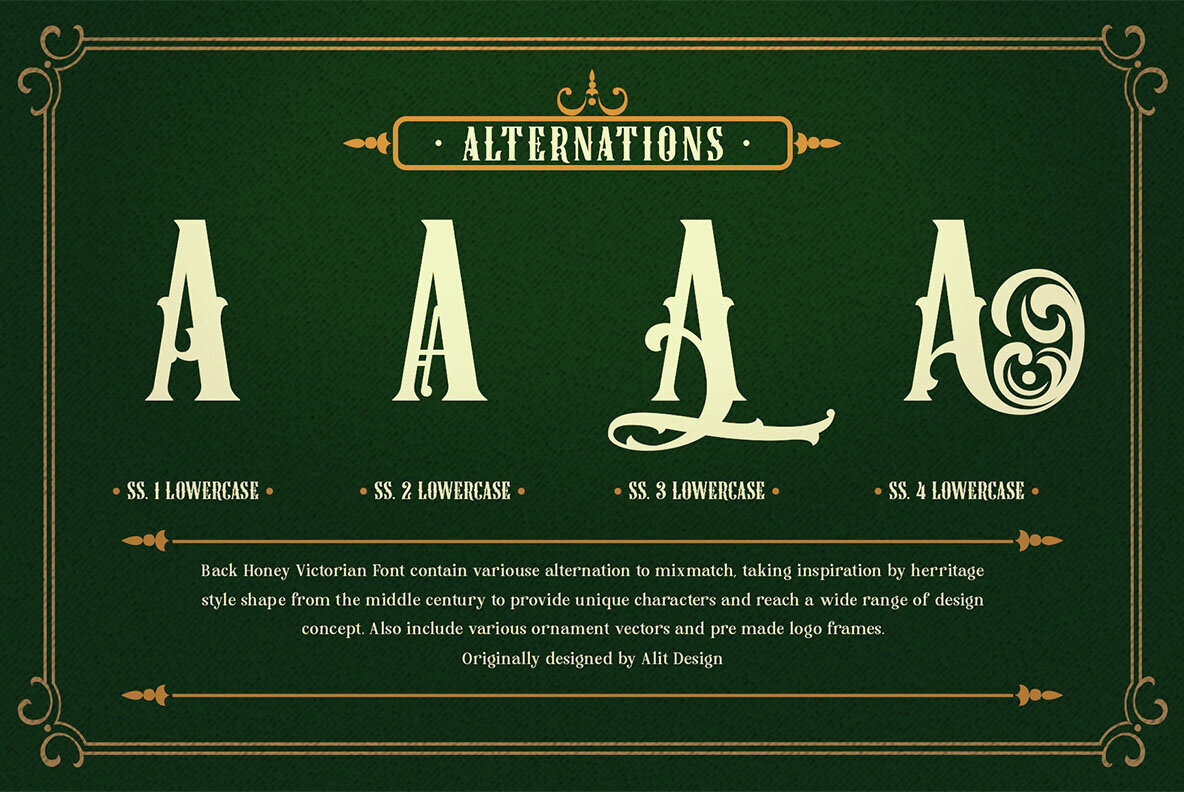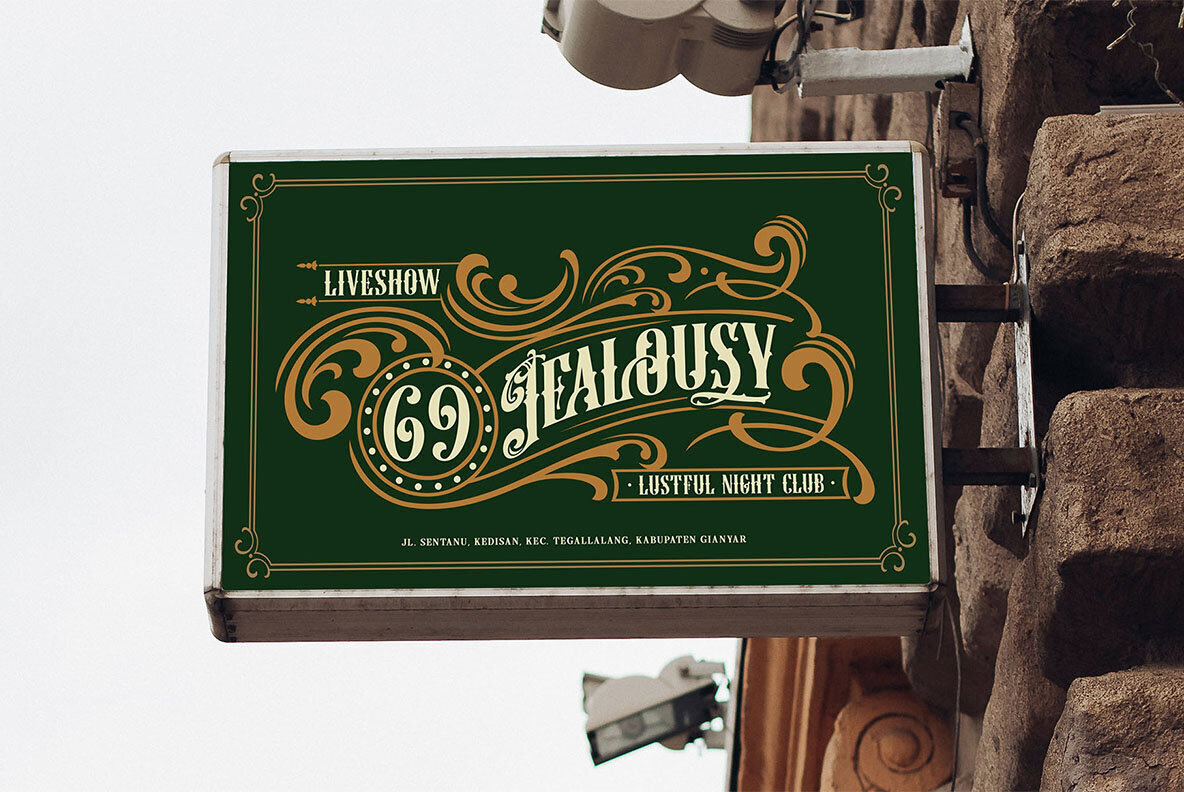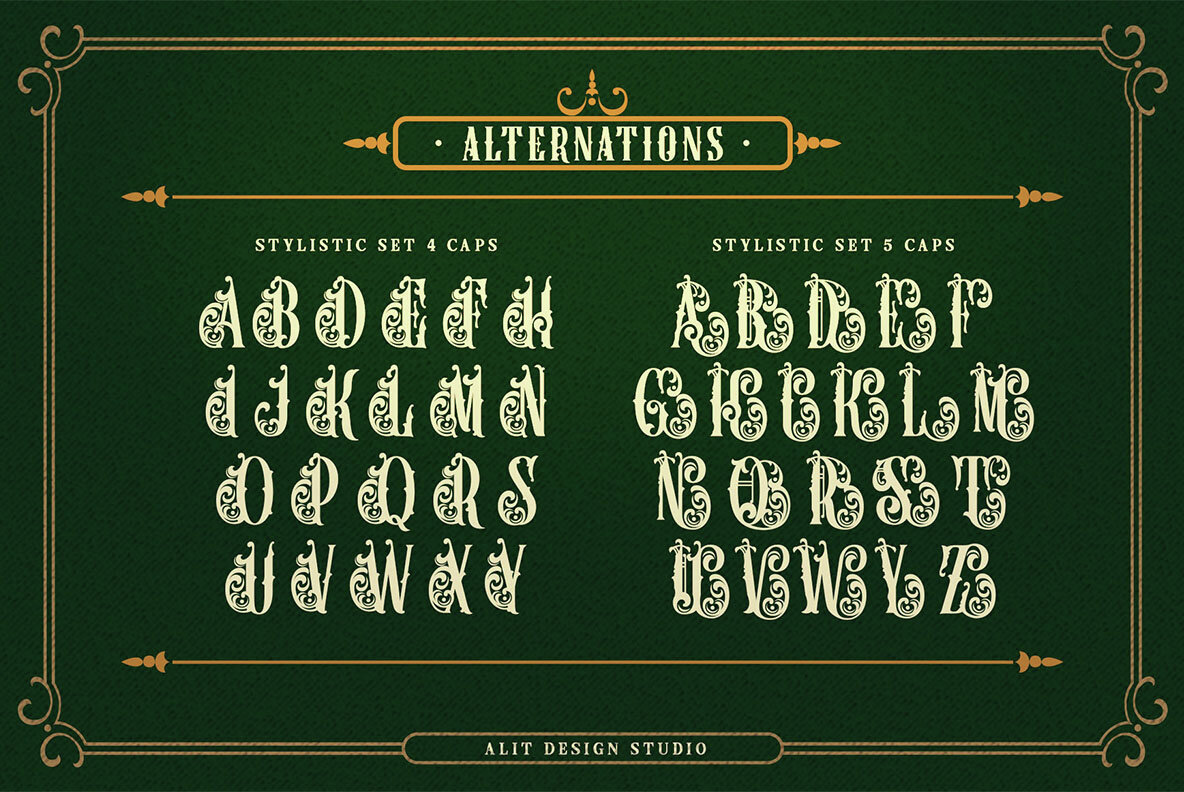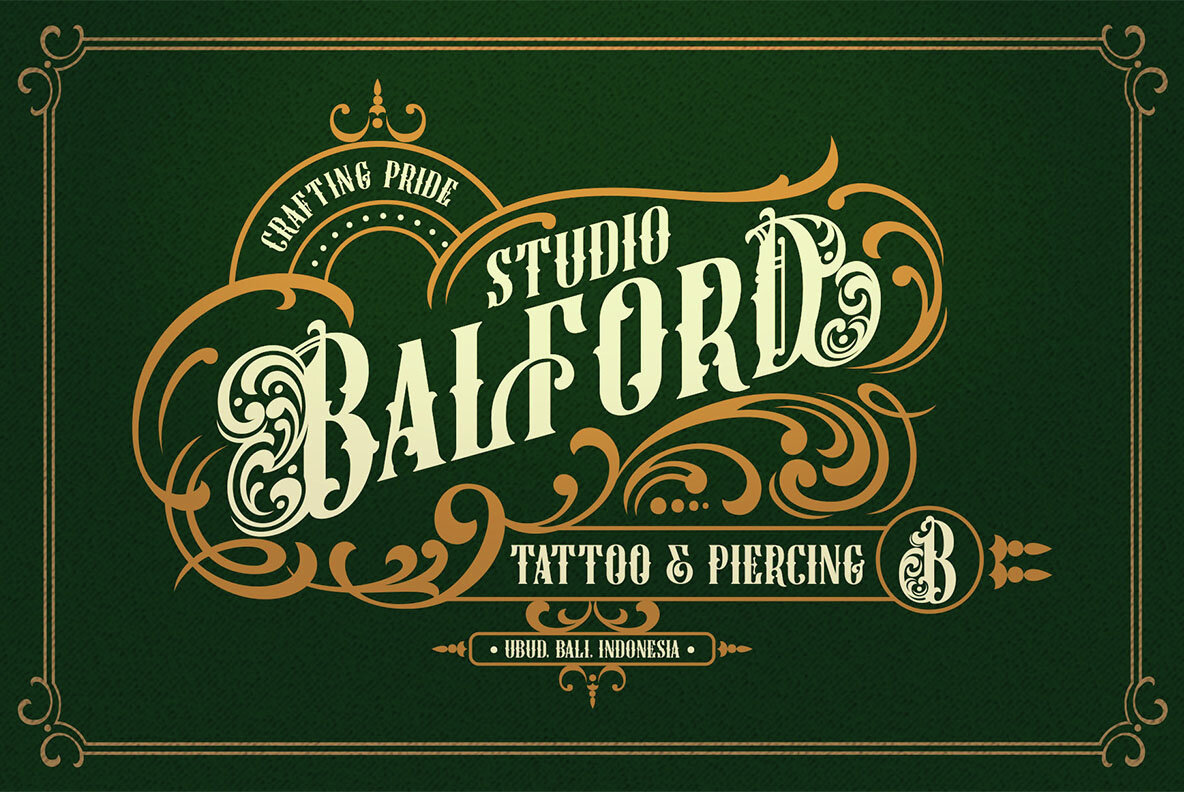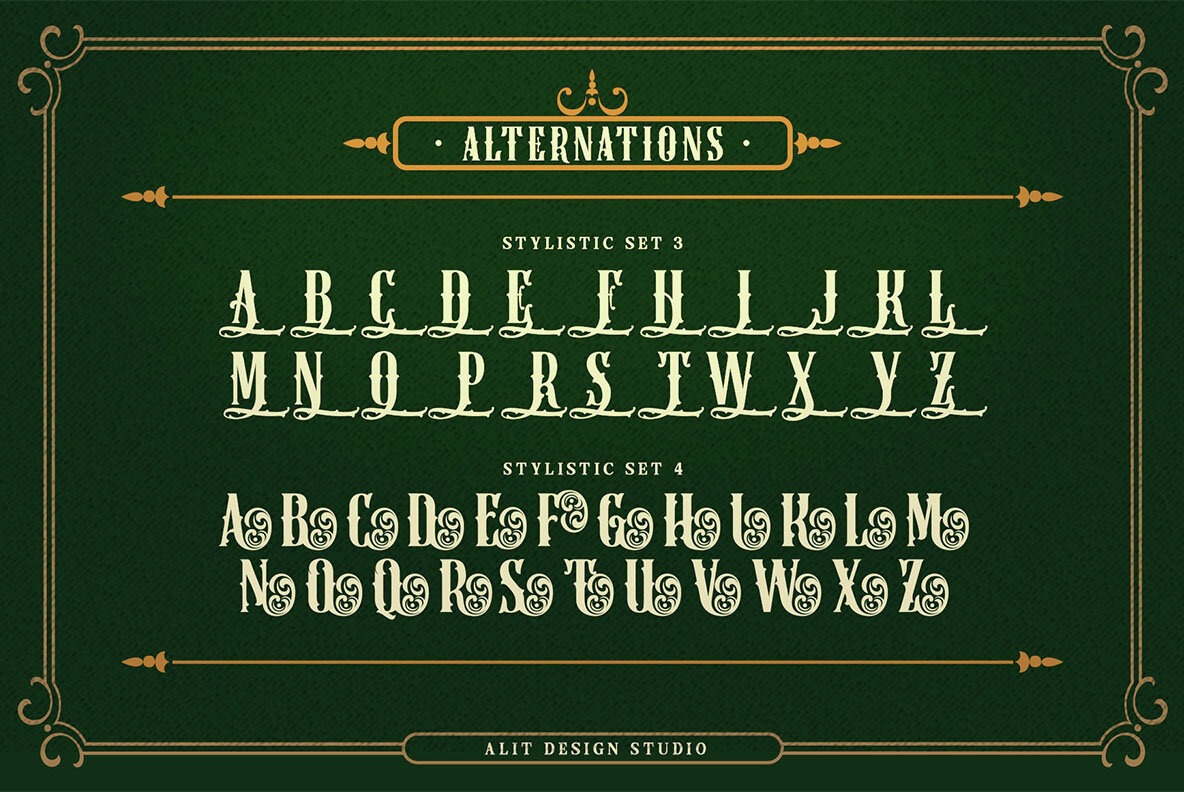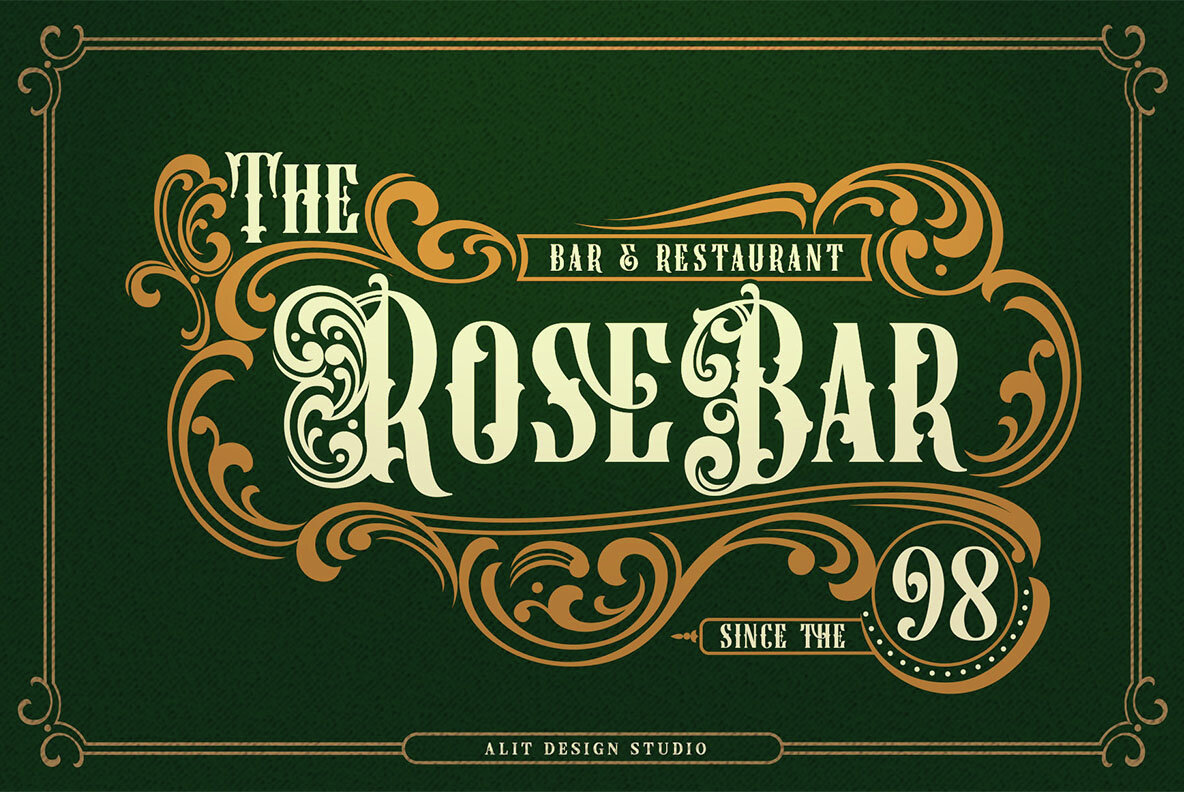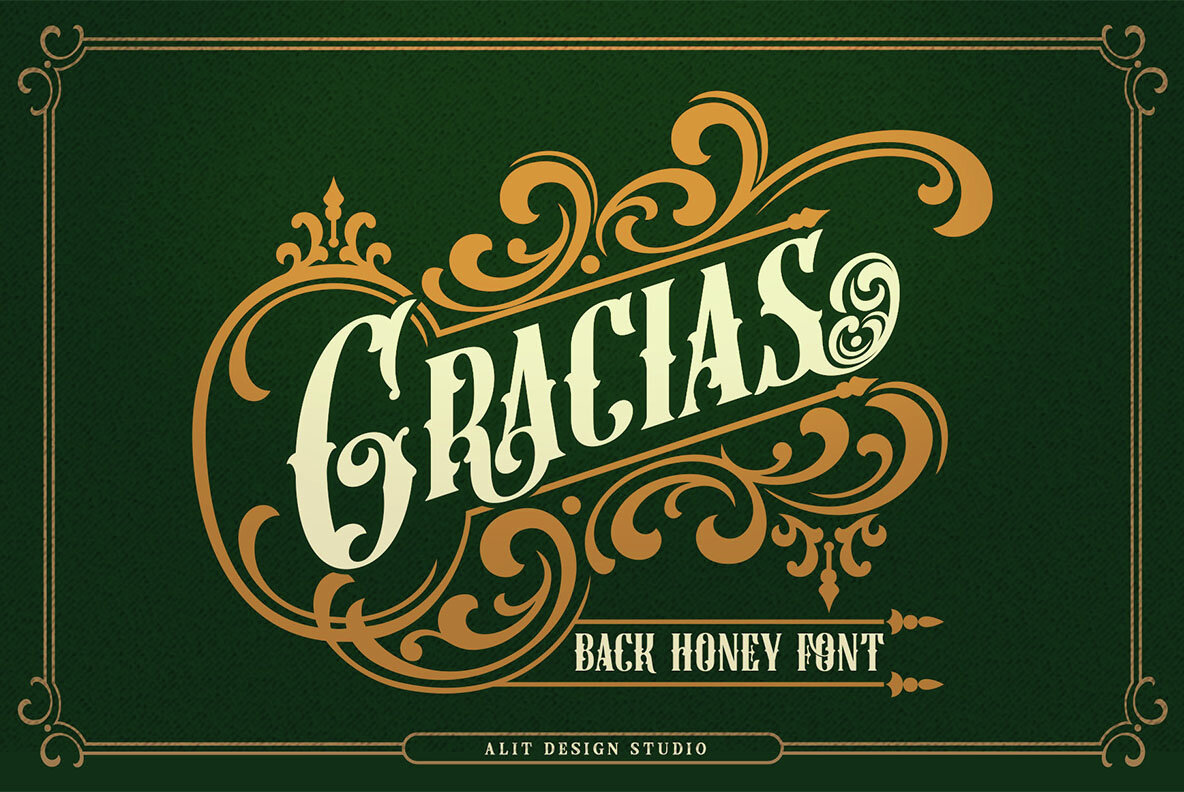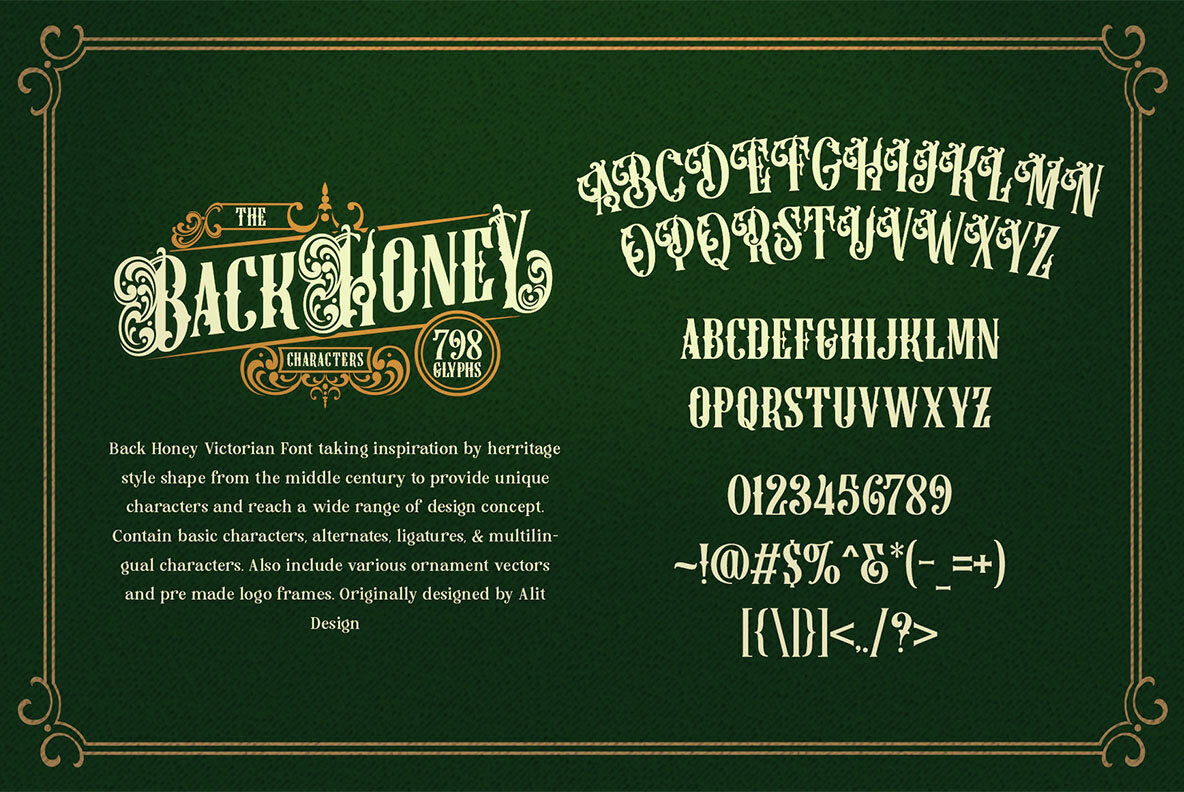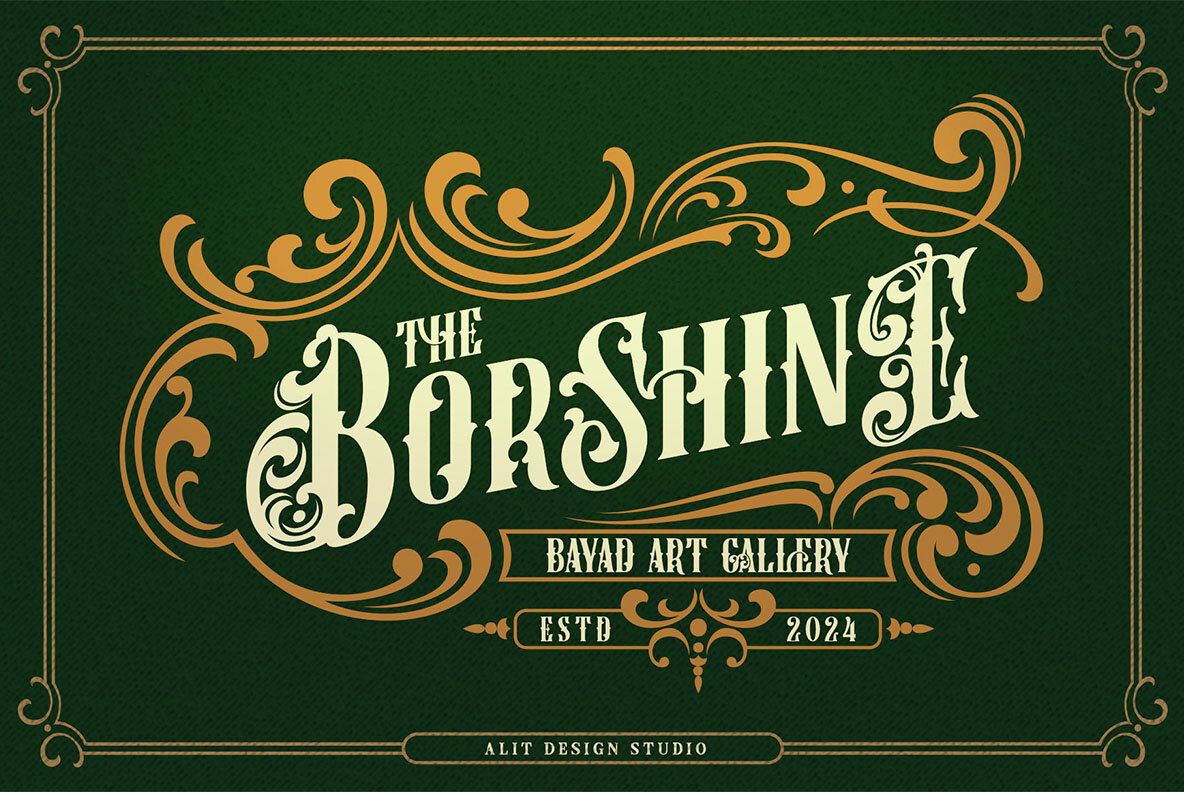
Back Honey Font
Back Honey Regular
Experience the charm of the Victorian era with this meticulously crafted serif font, inspired by the opulence and elegance of historic design. This sophisticated typeface elegantly combines vintage allure with intricate detailing, making it ideal for projects seeking a touch of classic refinement. Immerse your work in a bygone era with its unique blend of ornamental features and unmatched readability.
This versatile font offers 784 exquisitely designed characters, including an extensive character set with upper and lowercase letters, punctuation, and numerals. Explore endless creative possibilities with a variety of alternative characters, elegant ligatures, and expressive decorative swashes. Additionally, PUA encoding ensures seamless access to all characters on both Windows and Mac systems. With multilingual support, this font is perfect for a wide array of projects, such as wedding invitations, branding, packaging, editorial designs, book covers, signage, and posters.